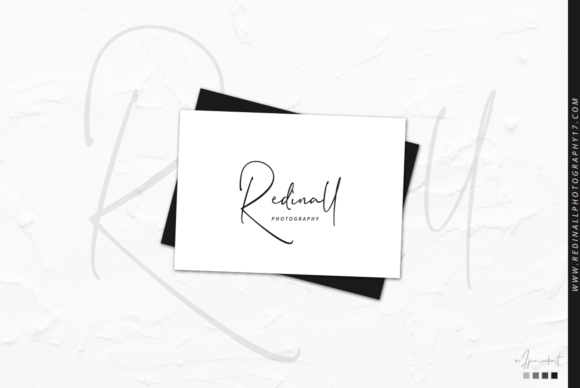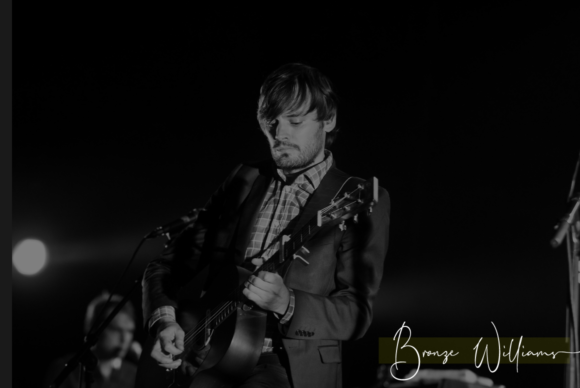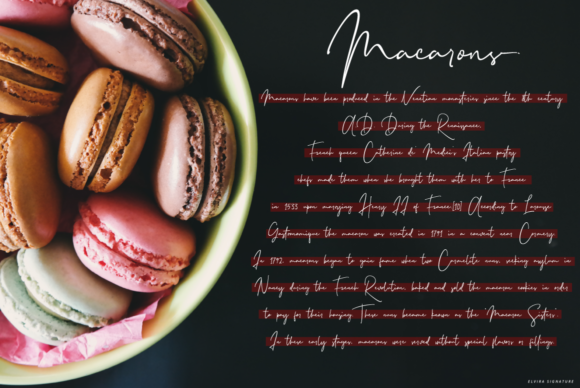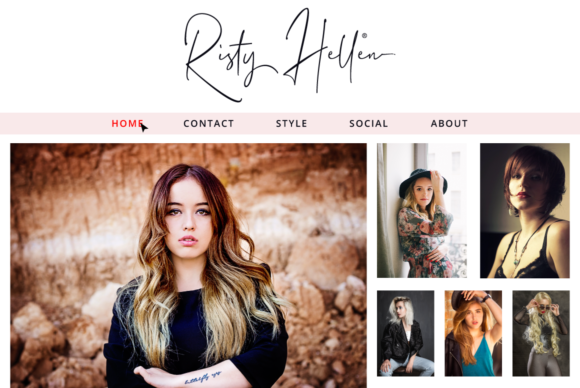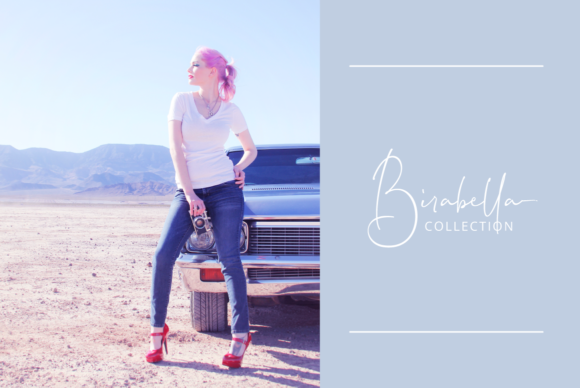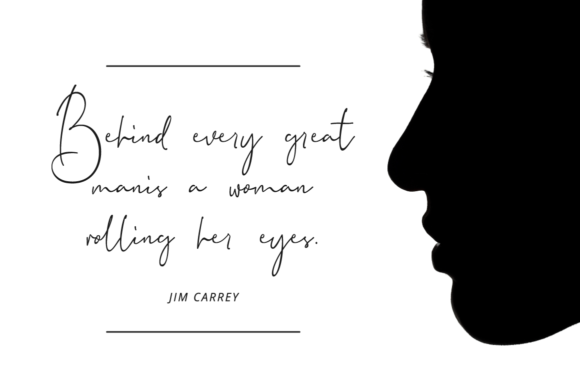
Introducing Elvira Font: The Ultimate Choice for Elegant and Playful Designs
Are you a designer or crafter looking for a font that exudes femininity and energy? Look no further than Elvira Font, a beautiful handwritten signature typeface that is sure to elevate your designs to the next level. With its classy and playful look, Elvira Font is the perfect fit for a wide range of creative projects, from logos and quotes to invitation cards and social media headers.
What Makes Elvira Font So Special?
Elvira Font is a unique and versatile typeface that comes with a wide range of stylistic ligatures, giving it a distinctive and elegant look. Its handwritten signature style is both modern and sophisticated, making it ideal for designers who want to add a touch of personality to their work. Whether you’re creating a logo for a fashion brand, designing a quote for a social media post, or crafting an invitation card for a special occasion, Elvira Font is the perfect choice.
Key Features of Elvira Font
• Handwritten signature style: Elvira Font has a beautiful, flowing script style that gives it a personal and elegant touch.
• Stylistic ligatures: The font comes with a wide range of stylistic ligatures, allowing you to create unique and creative designs.
• Feminine and energetic look: Elvira Font has a distinctly feminine and energetic look that makes it perfect for designs that require a touch of elegance and playfulness.
• Versatile: The font is suitable for a wide range of creative projects, from logos and quotes to invitation cards and social media headers.
Use Cases for Elvira Font
Elvira Font is a versatile typeface that can be used for a wide range of creative projects. Here are some use cases where Elvira Font shines:
• Feminine logos: Elvira Font is perfect for creating elegant and sophisticated logos for fashion brands, beauty products, and other businesses that cater to a female audience.
• Printed quotes: Add a touch of elegance and personality to your quotes with Elvira Font, making them perfect for social media posts, blogs, and print materials.
• Invitation cards: Create beautiful and unique invitation cards for special occasions such as weddings, baby showers, and birthday parties with Elvira Font.
• Social media headers: Use Elvira Font to create eye-catching social media headers that reflect your brand’s personality and style.
• Product packaging: Add a touch of elegance and sophistication to your product packaging with Elvira Font, making it perfect for luxury brands and high-end products.
Why Designers and Crafters Love Elvira Font
Elvira Font has quickly become a favorite among designers and crafters due to its unique and versatile design. Here are some reasons why:
• Customizable: The font comes with a wide range of stylistic ligatures, allowing you to customize your designs and make them truly unique.
• High-quality design: Elvira Font is designed with high-quality and precision, ensuring that your designs look professional and polished.
In conclusion, Elvira Font is a beautiful and versatile handwritten signature typeface that is perfect for designers and crafters looking to add a touch of elegance and playfulness to their designs. With its wide range of stylistic ligatures, ease of use, and high-quality design, Elvira Font is the ultimate choice for a wide range of creative projects. Whether you’re creating a logo, designing a quote, or crafting an invitation card, Elvira Font is sure to elevate your designs to the next level.